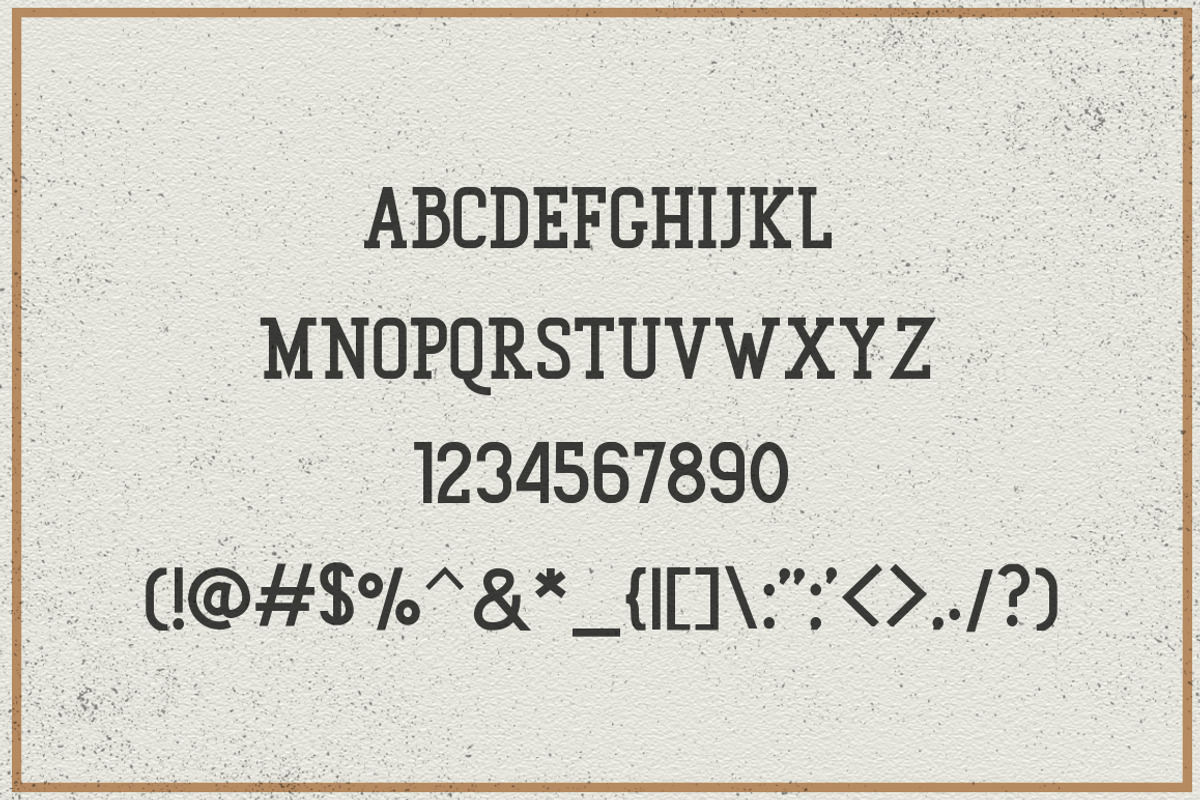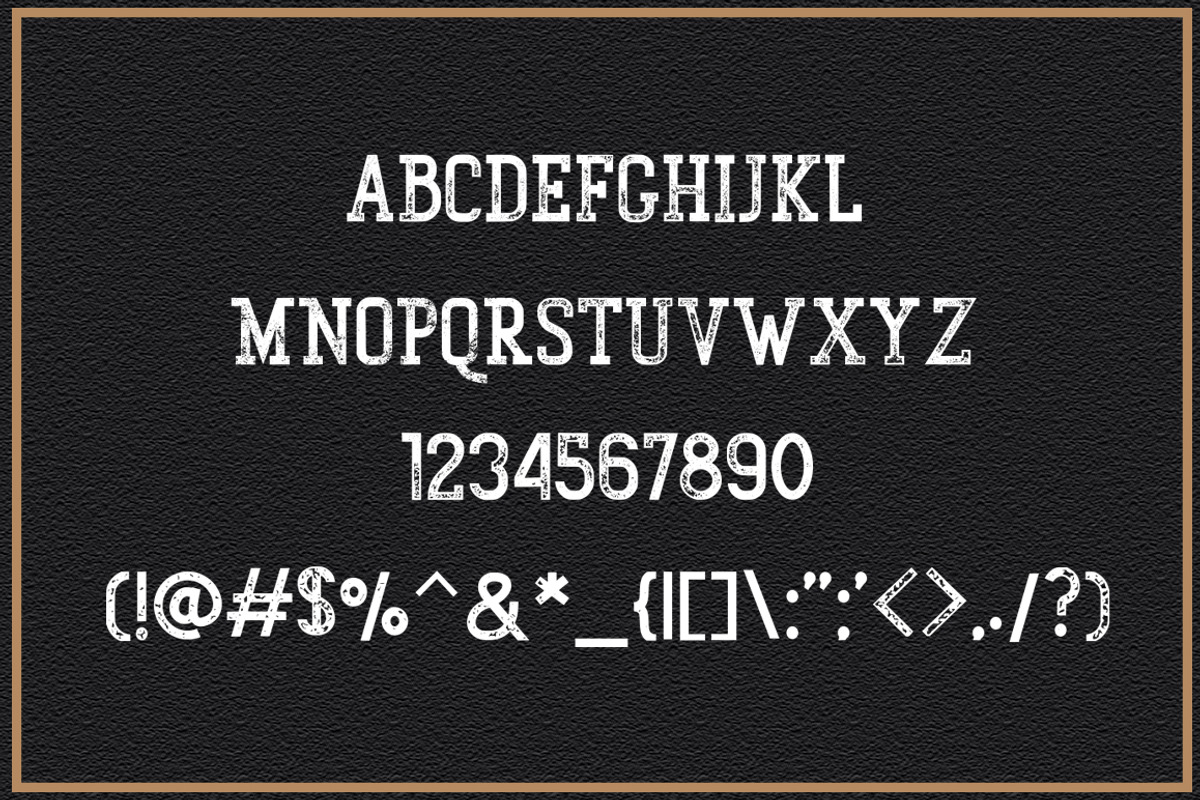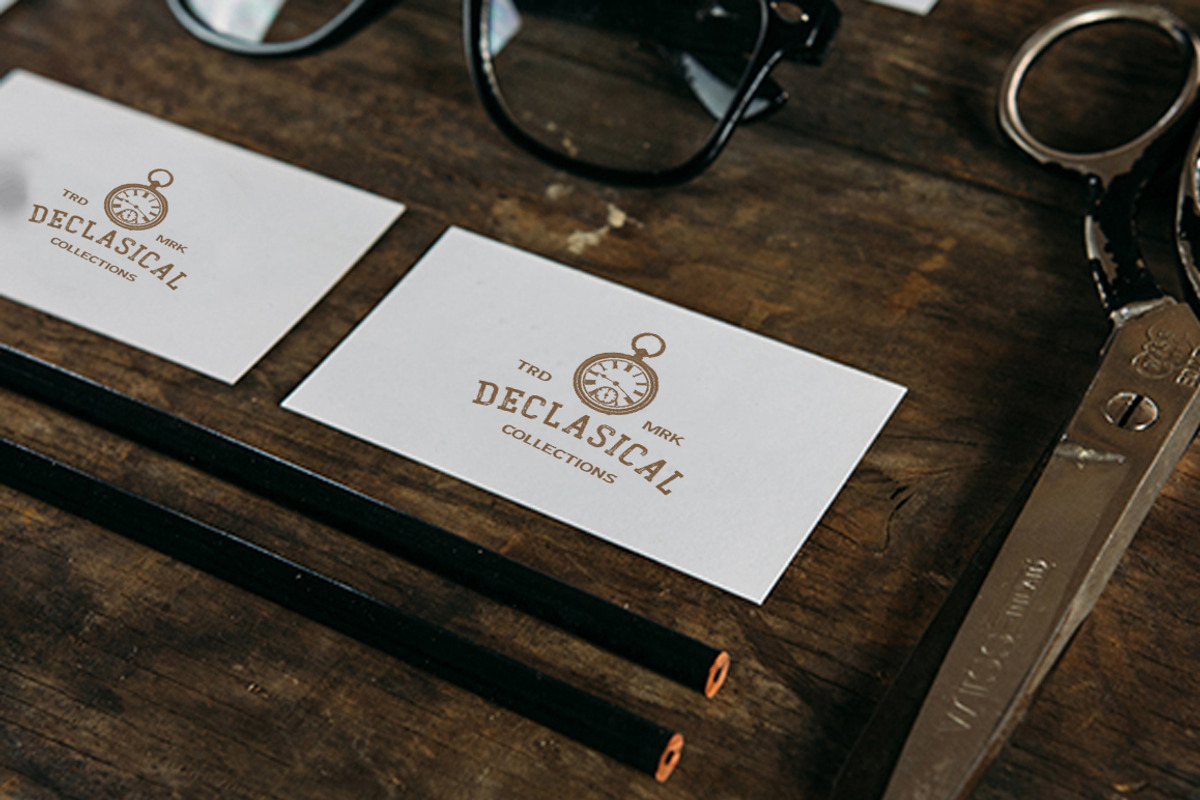
Gunberg Slab Serif
So, this time I made a font called Gunberg Slab Serif that has a vintage theme that you can use for your project.
This font has 2 styles namely Clean and rough so you can use that style according to the type of project. also, Guberg font includes western european characters (multilingual support).
All characters have an imperfect shape that gives a natural look in design. It easily cooperating together and perfect for creating the traditional style logos, labels, package design, lettering for t-shirts and much others.